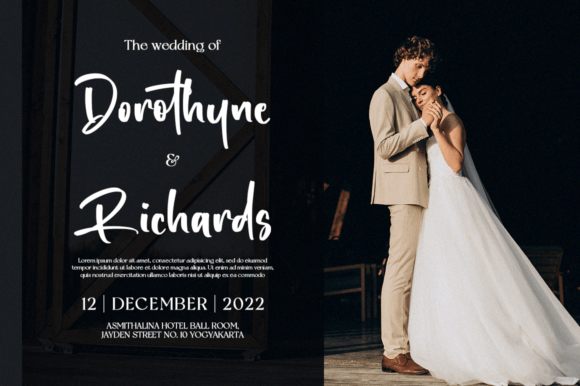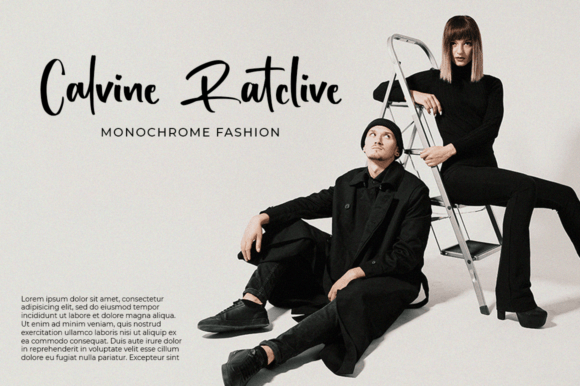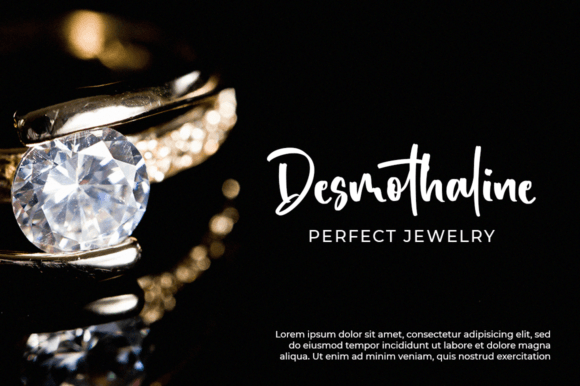
Introduction to Musticalive Font
Have you ever stared at a blank canvas, waiting for the perfect font to spark your creative project? That’s exactly what happened to many designers when they discovered the Musticalive Font. Its lovely and bold script style exudes elegance and class, making it the perfect addition to any design.
Imagine being able to add a touch of sophistication to your designs with just a few clicks. The Musticalive Font is PUA encoded, allowing you to access all of the glyphs and swashes with ease, making it a valuable resource for designers who need a high-quality font for their creative projects.
Whether you’re working on a design for a website, a brochure, or a social media campaign, the Musticalive Font is a must-have resource. With its transparent background and free download option, it’s a great addition to any design arsenal.
Key Features of Musticalive Font
- High-quality font with a transparent background, ideal for creative projects requiring a clean and minimalist design.
- Unique to the Musticalive Font is its versatility, suitable for use in a wide range of creative projects, from logos and branding to digital art and typography.
- Musticalive Font’s clean and modern design makes it an excellent choice for designers seeking a high-quality, free design resource.
- With its transparent background and high-resolution design, the Musticalive Font is perfect for designers who want to add a touch of elegance to their creative projects.
Honest Review: Musticalive Font
I recently stumbled upon the Musticalive Font while searching for a free download to use in my design projects. As a designer, I was excited to try out this new font and see if it could add some creativity to my work.
- High quality design – The Musticalive Font has a crisp and clean appearance, making it perfect for use in logos, branding, and other design elements.
- Transparent background – This feature allows for easy customization and flexibility when using the font in different design contexts.
However, I did encounter a few limitations with the Musticalive Font. ⚠️
- Limited font styles – Compared to other fonts, the Musticalive Font has a relatively limited range of styles and weights.
- No support for advanced typography features – While the font looks great on its own, it may not be suitable for projects that require complex typography.
Overall, I was impressed with the Musticalive Font, and I would definitely consider using it in future design projects. Its high quality design and transparent background make it a valuable resource for designers. With a little creativity, I was able to work around its limitations and achieve the desired look for my project. ✨
Common Use Cases for Musticalive Font
The Musticalive Font is ideal for a variety of creative projects, including brochures, posters, and social media graphics. It’s also a great choice for presentations and documents that require a professional and high-quality look.
Q: What is the recommended usage for the Musticalive Font in a design project?
The Musticalive Font is a high-quality design resource that can be used in a variety of creative projects, including branding, advertising, and digital design. We recommend using the font in conjunction with other design elements, such as images and graphics, to create a visually appealing and engaging design. Additionally, you can use the font in a variety of font sizes and styles to add depth and interest to your design.